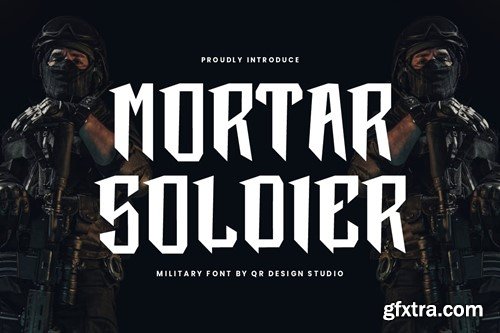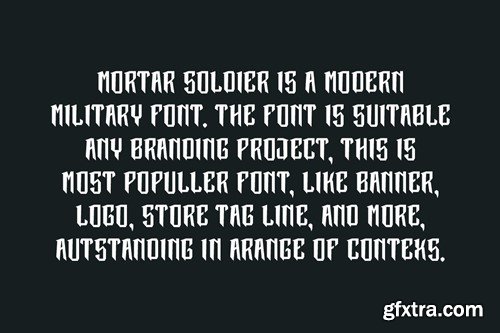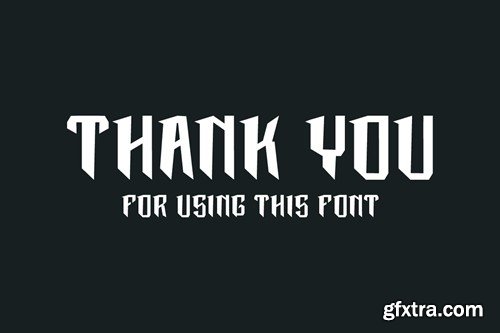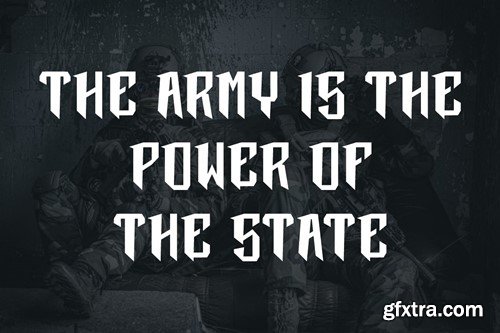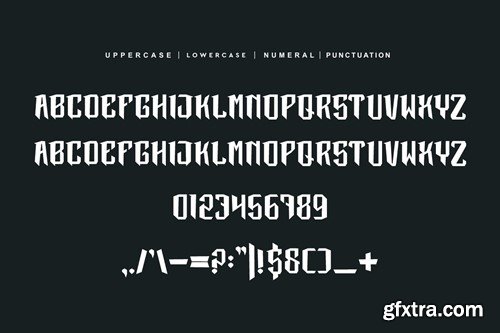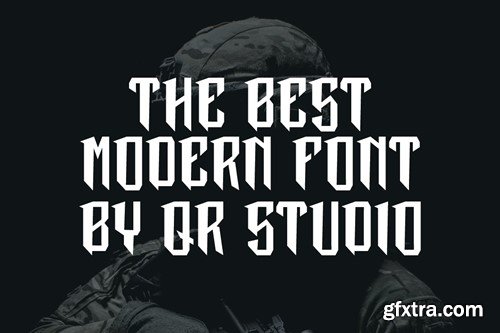
Mortar Soldier - Military Font
Mortar Soldier - Military Font is a bold and authentic display font. The font is suitable for any branding project like poster, logo, sport, and many more. Outstanding in a wide range of contexts. Included